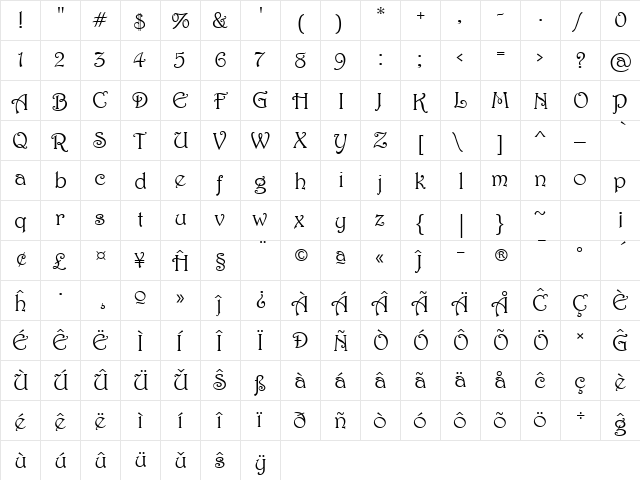
Harrington Eo Regular
Design Context for Harrington Eo Typeface
Harrington Eo is a composed and adaptable typeface that performs quietly and consistently across a wide range of design contexts.
Pro Tip: Use Harrington Eo in both headline and body roles to test its range before committing to a single application.